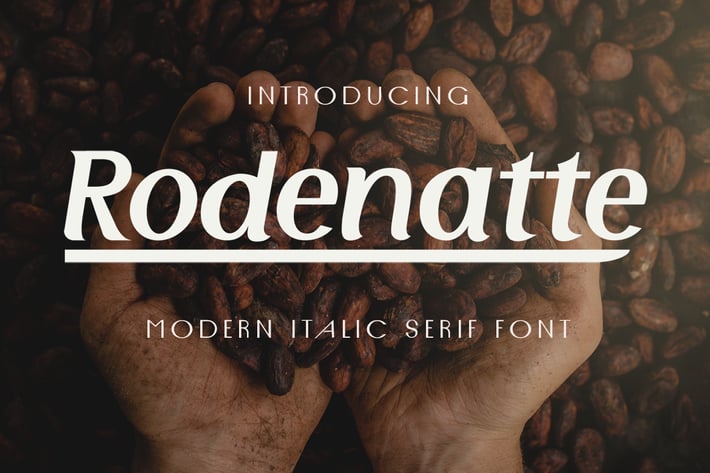
Rodenatte - Italic Font
Introducing Rodenatte, a simple italic sans serif font. Its unique and lovely feel.
So perfect for you who needs a typeface for logo designs, magazine, social media, brochure, and many more.